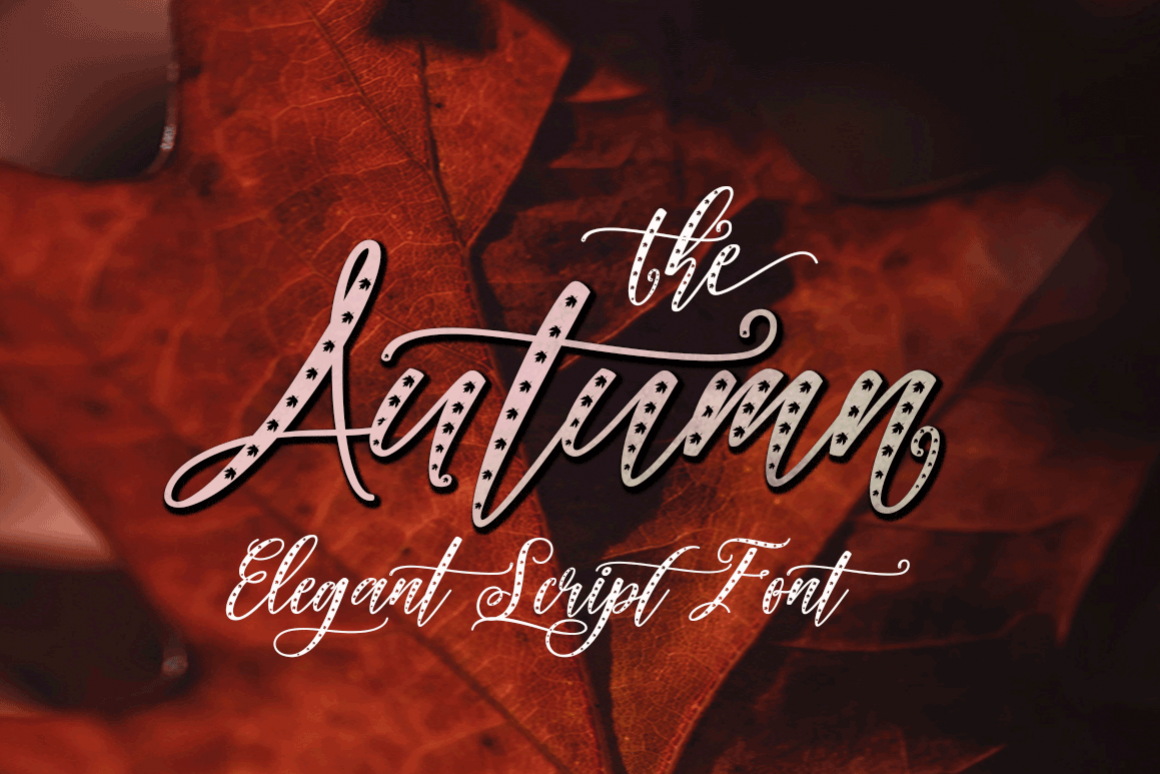
Autumn Elegant
Autumn Elegant Scrip
INTRODUCING
Autumn Elegant, is a modern calligraphy font, with characters dance along the baseline and elegant touch. With almost 406 glyphs. Opentype features with stylistic alternates, ligatures and multiple language support. Can be used for various purposes such as logos, wedding invitation, letterhead, signage,news, t-shirt, heading lable, posters, badges etc.